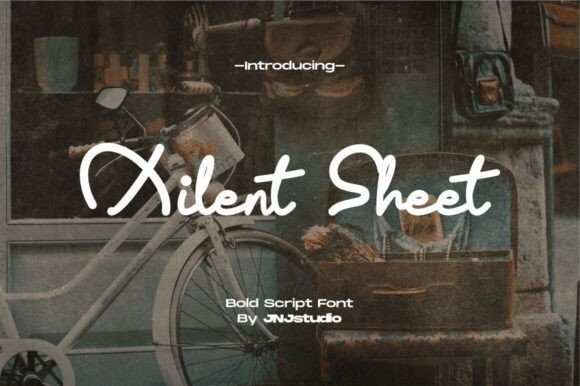
Xilent Sheet Font: Elevate Your Designs with Elegant Handwritten Style
In the world of typography, few fonts manage to capture the essence of handwriting while maintaining a level of sophistication suitable for high-end projects. Xilent Sheet Font is one such exceptional typeface that brings together the warmth of handwritten script with the elegance required for premium designs. This stylish handwritten script font is perfect for projects that demand a personal touch, making it an excellent choice for wedding invitations, greeting cards, branding, and more.
Key Features of Xilent Sheet Font
- Fluid Strokes and Gentle Curves: Xilent Sheet Font boasts fluid strokes and gentle curves that mimic the natural flow of handwriting. This feature gives the font a dynamic and organic feel, making it stand out in any design.
- Balanced Letterforms: The fontโs carefully crafted letterforms achieve a perfect balance between casual charm and sophisticated flair. This balance ensures that the font is versatile enough to be used in various design projects.
- Readability: With its smooth connections and well-proportioned characters, Xilent Sheet Font delivers excellent readability without sacrificing the handwritten aesthetic. This makes it ideal for both body text and headlines.
- Elegance and Authenticity: The font exudes elegance and a personal touch, making it perfect for projects that require a touch of authenticity and warmth.
Ideas for Using Xilent Sheet Font
Xilent Sheet Fontโs versatility makes it suitable for a wide range of design projects. Here are some ideas to get you started:
- Wedding Invitations: Add a touch of romance and elegance to your wedding invitations with Xilent Sheet Font. Its fluid strokes and gentle curves create a beautiful, personal feel that sets the tone for a memorable event.
- Greeting Cards: Whether itโs a birthday, anniversary, or holiday greeting, Xilent Sheet Font brings warmth and personality to your cards, making them truly special.
- Branding: For brands looking to convey a sense of elegance and approachability, Xilent Sheet Font is an excellent choice. It can be used for logos, packaging, and marketing materials to create a cohesive and sophisticated brand image.
- Stationery: Elevate your stationery designs with Xilent Sheet Font. Its handwritten aesthetic adds a personal touch to letters, notes, and journals.
- Digital Content: Use Xilent Sheet Font in digital content such as blog headers, social media graphics, and website titles to add a touch of elegance and personality.
Tips for Using Xilent Sheet Font Effectively
To make the most of Xilent Sheet Font, consider the following typography tips:
- Pair with Complementary Fonts: Combine Xilent Sheet Font with sans-serif fonts for a modern contrast or with other script fonts for a layered, elegant look.
- Adjust Letter Spacing: Fine-tune the letter spacing to ensure optimal readability and aesthetic appeal. This is especially important for longer texts.
- Use Size and Weight Variations: Take advantage of the fontโs various weights and sizes to create visual hierarchy and emphasize key elements in your design.
- Highlight Special Details: Use swashes or decorative elements (if available) to highlight special details or to add a unique touch to your text.
Inspiration Gallery: Xilent Sheet Font in Action
See how Xilent Sheet Font can elevate your designs with these inspiring examples:
- Characters: Includes a wide range of characters, including uppercase and lowercase letters, numbers, and punctuation.
Xilent Sheet Font is a versatile and stylish handwritten script font that brings elegance, authenticity, and warmth to any design project. Its fluid strokes, gentle curves, and balanced letterforms make it perfect for a variety of applications, from wedding invitations and greeting cards to branding and digital content. With its readability and aesthetic appeal, Xilent Sheet Font is sure to become a favorite in your typography collection.